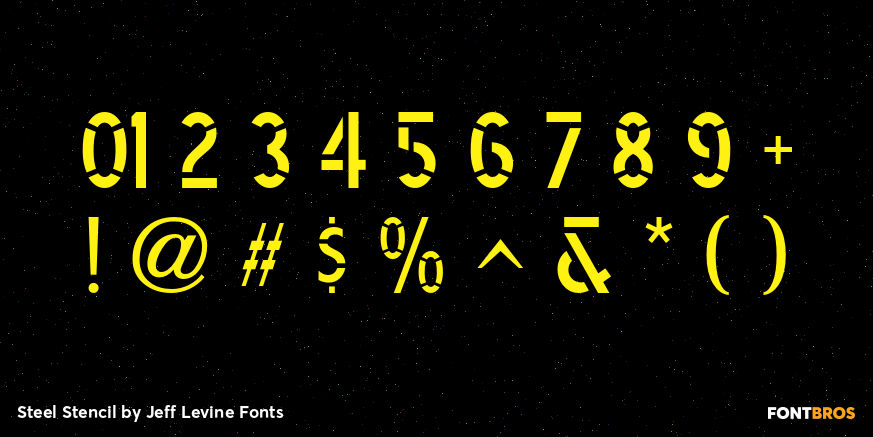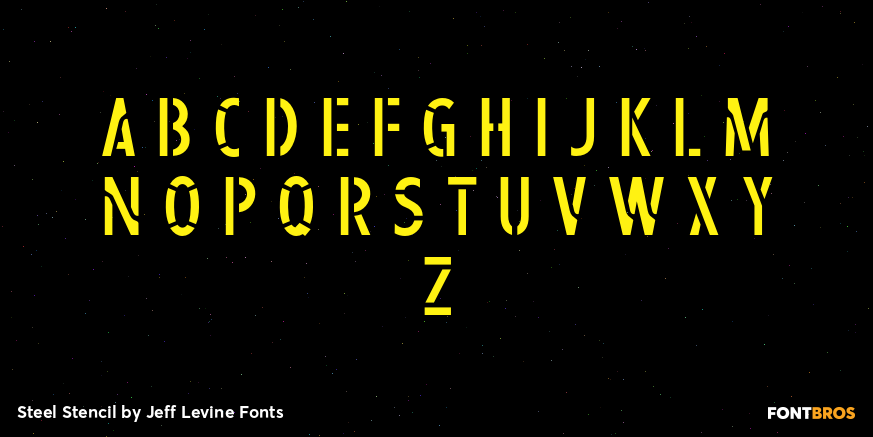
Steel Stencil
A group of unique metal plates with stencil initials cut into them was spotted while browsing through online auctions for source material.
What made these items even more interesting was how some of the stencil letters had been sectionally divided – not vertically or horizontally as in most stencils, but lines cut at angles.
This is the basis for Steel Stencil JNL and Steel Stencil Oblique JNL.